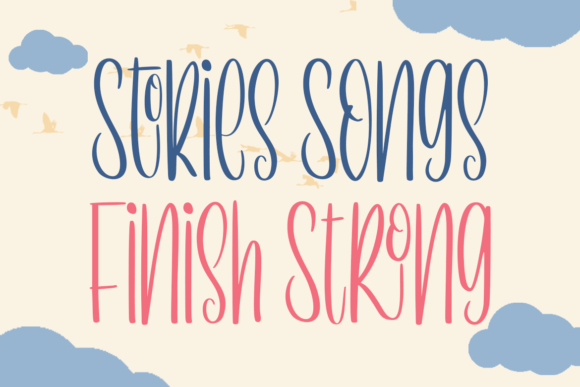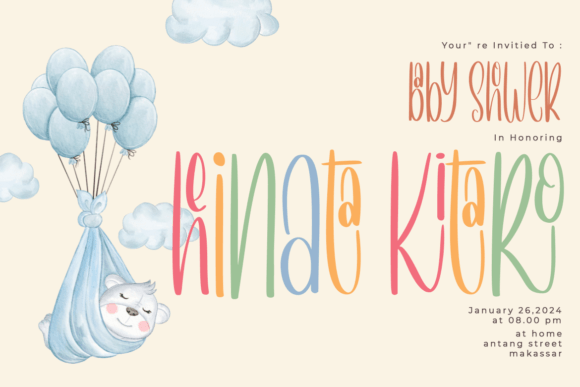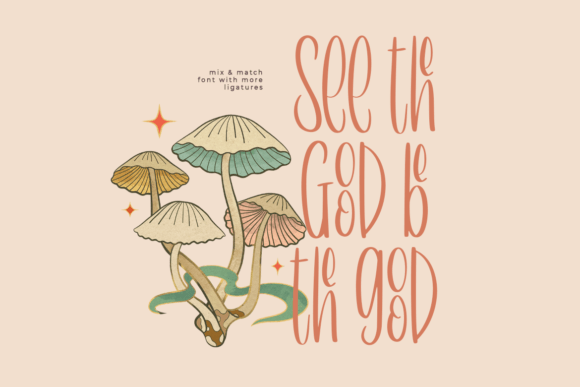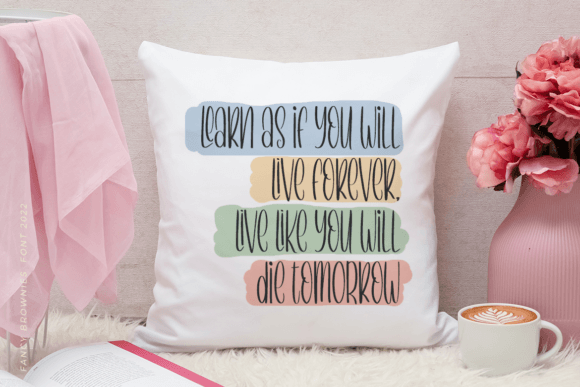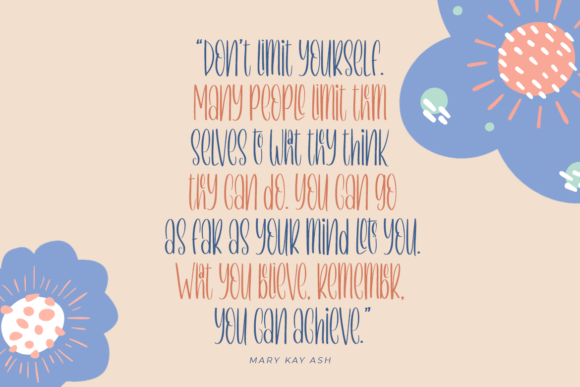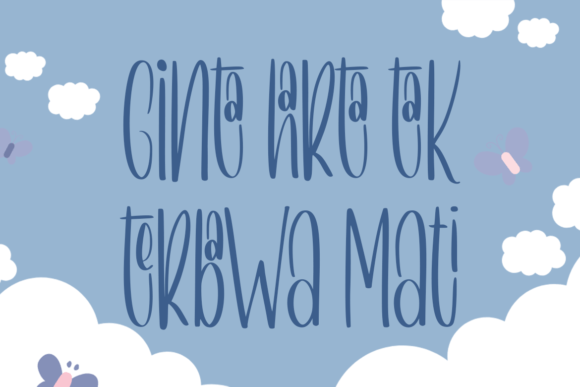
The Fancy Brownies Font: A Game-Changer for Creative Projects
Have you ever been in the middle of a design project, and suddenly, you just can’t seem to find the right font? I know I have! It was a typical Wednesday afternoon when I was working on a greeting card design for a client’s birthday. The design was almost complete, but something was missing – the perfect font. That’s when I stumbled upon the Fancy Brownies font, and it completely transformed my project!
The Fancy Brownies font is a versatile, cute, and playful handwritten font that’s perfect for a wide spectrum of applications such as greeting cards, headlines, and many more! Add it to any of your creative projects, and it will give them a clean and fun feel. In this article, I’ll share my honest review of the Fancy Brownies font, a practical guide on how to use it, and some similar font alternatives.
My Honest Review
- ✨ The Fancy Brownies font is incredibly versatile and can be used for various design projects, from digital to print.
- ✅ It’s a handwritten font that adds a personal touch to any design, making it perfect for greeting cards, invitations, and more.
- 💕 The font has a clean and fun feel, making it ideal for designs that require a playful touch.
- 🎉 It’s easy to read and understand, even in smaller font sizes.
While the Fancy Brownies font is amazing, there are a few minor quirks to be aware of:
- ⚠️ Some letters may appear a bit inconsistent in terms of size and spacing, but this can actually add to the font’s charm.
- 🤔 The font may not be suitable for body text or long paragraphs, as it’s best used for headlines or short sentences.
The Designer Inspiration Behind Fancy Brownies
The Fancy Brownies font was designed with the intention of creating a playful, yet elegant handwritten font that’s perfect for a wide range of design applications. The designer aimed to create a font that’s both fun and sophisticated, making it ideal for designs that require a touch of personality.
Q: What is the Fancy Brownies font best used for?
A: The Fancy Brownies font is best used for designs that require a playful, yet elegant touch, such as greeting cards, invitations, and headlines.
Q: Is the Fancy Brownies font suitable for body text?
A: While the Fancy Brownies font is easy to read, it’s not recommended for body text or long paragraphs. It’s best used for headlines or short sentences.
Q: Is the Fancy Brownies font available in different languages?
A: The Fancy Brownies font may not be available in all languages, but it does support a range of languages, including English, Spanish, and French.